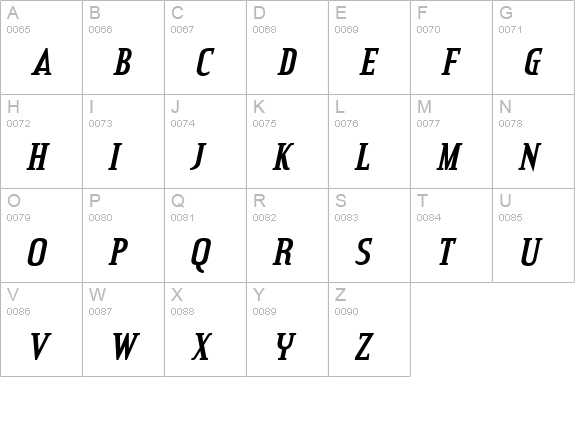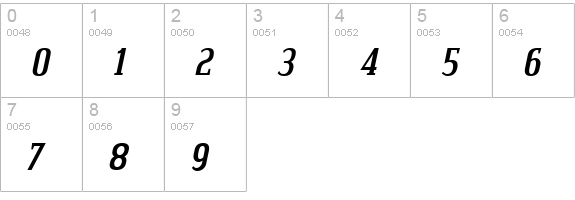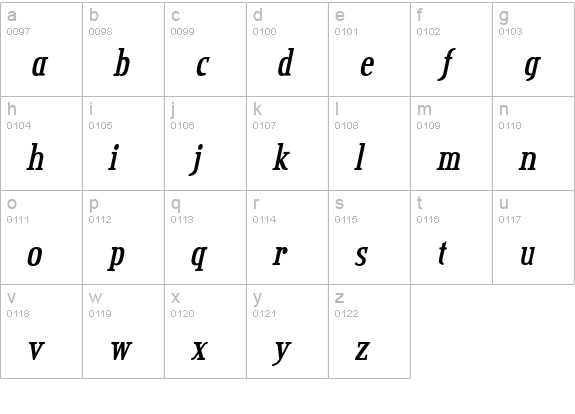
Credit Valley Bold Italic Font Details
Credit Valley Bold Italic is a strong, high-contrast, italic variant in the Credit typeface family \xE2\x80\x94 well suited to headlines, attention-grabbing titles, and strong calls-to-action.